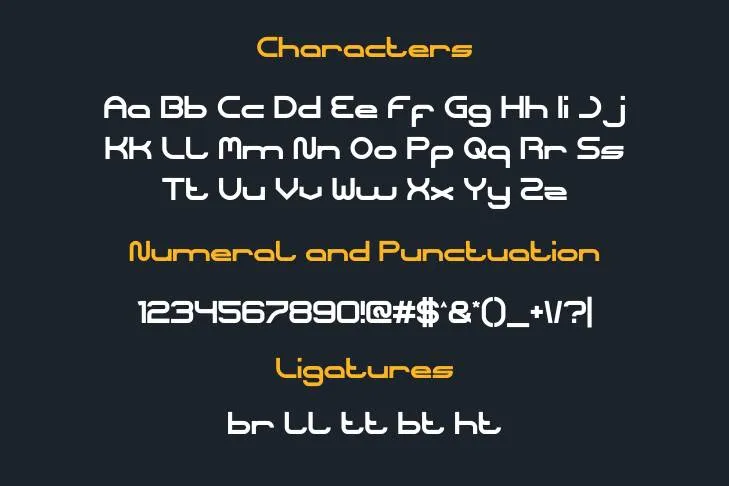
Introducing an engaging and fascinating post in which we’ll introduce to you an innovative and distinctive typeface called Coreldraw font. This particular texture style belongs to the Techno typeface family. In terms of layout and design, this typeface is among the greatest textures and it also resembles the famous Nickelodeon font.
Creative Ways to Use Coreldraw Font
This exquisite typeface has a sophisticated hand-drawn style that also lends credibility to any design. It is quite useful for creating logos, headlines, titles, and several additional tasks. This typeface suits well for projects which demand attention and creativity because of its text’s bold calligraphic style. To achieve a design that stands out and captures attention, utilize this font in conjunction with the qwigley font.
This fantastic typeface can be utilized to create amazing design concepts. This font features a unique style for textual and visual purposes. Furthermore, this superb typography is best for creating banners, posters, product labels, tags, signage, or for advertisement tasks. It is also beneficial for printing lettering on garments and stationery products.
Characters of Coreldraw Font
Font Information
Name | Coreldraw Font |
Deisgner | weknow |
Style | Techno |
Variations and Styles in Font Family
This splendid typeface is composed of 5 weights and these weights enable the designers to utilize it for various kinds of projects and to make their creations stand out as compared to other designs and projects. The list of its weights is mentioned below:
- Coreldraw Regular
- Coreldraw Bold
- Coreldraw Italic
- Coreldraw Light
- Coreldraw Inverse
What kind of font is the Coreldraw?
This particular texture style belongs to the Techno texture family. In terms of layout and design, this style is among the greatest textures and it also resembles the famous Nickelodeon font.
Can I use the Coreldraw font to design a video gaming interface?
Yes, this Techno font is best used to design a video gaming interface or for other technology-related purposes.